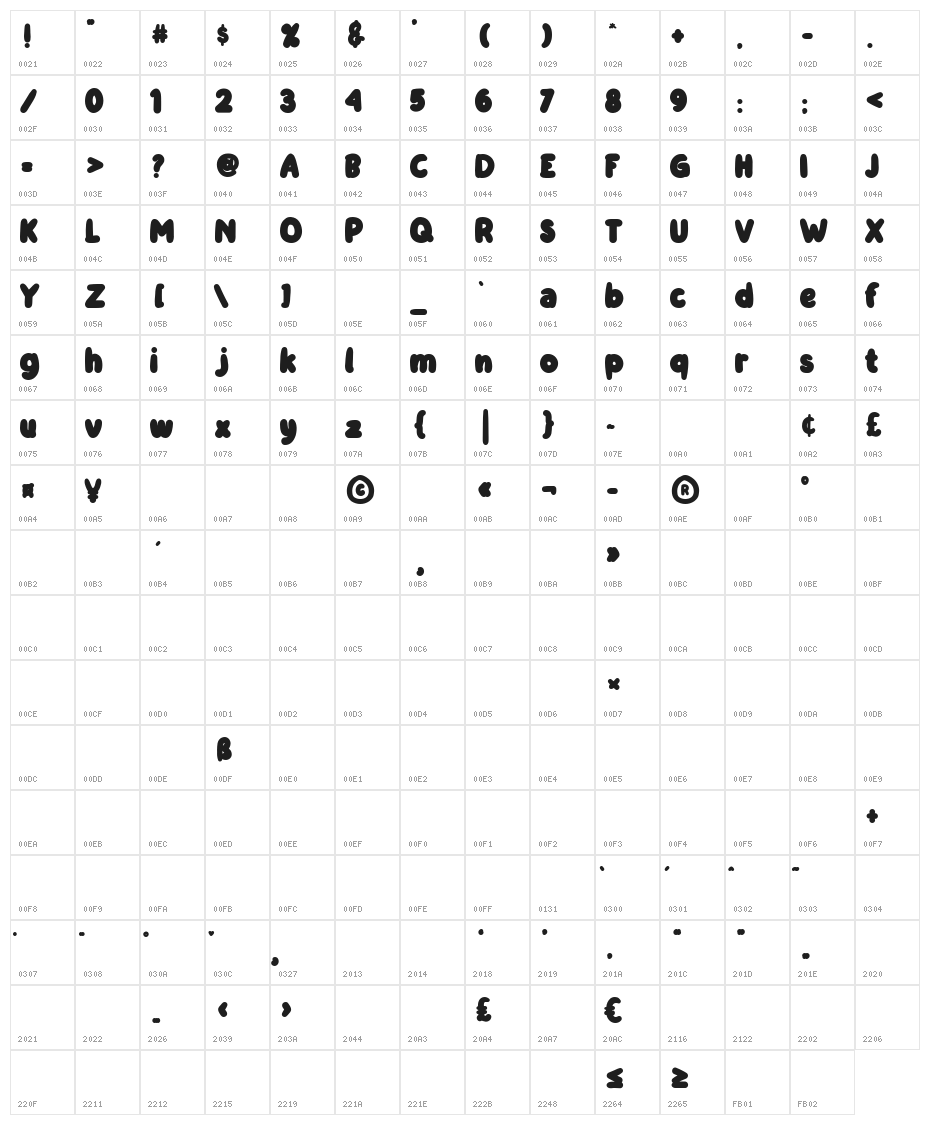
Babelgam Font
Babelgam Description
This playful and bold font features rounded, bubbly characters that exude a sense of fun and whimsy. The letters are thick and have a uniform stroke width, creating a cohesive and friendly appearance. The uppercase and lowercase letters maintain a consistent style, with rounded edges and a slightly inflated look, reminiscent of balloons or cartoon lettering. The numerals and special characters follow the same design principles, ensuring a harmonious overall look. This font is highly legible and eye-catching, making it ideal for projects that require a touch of personality and charm.
| Overall Style | Playful, Whimsical |
| Proposed Projects | Ideal for children's books, playful branding, party invitations, and any project needing a fun, whimsical touch. |